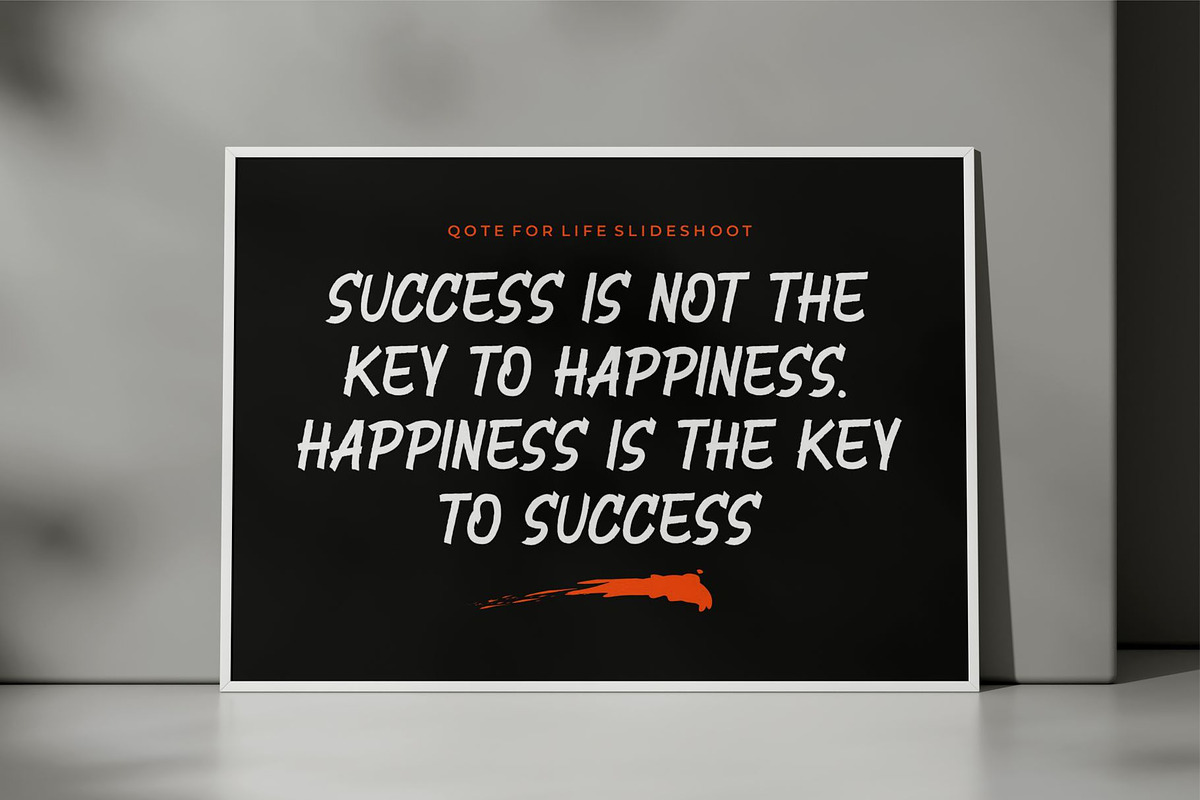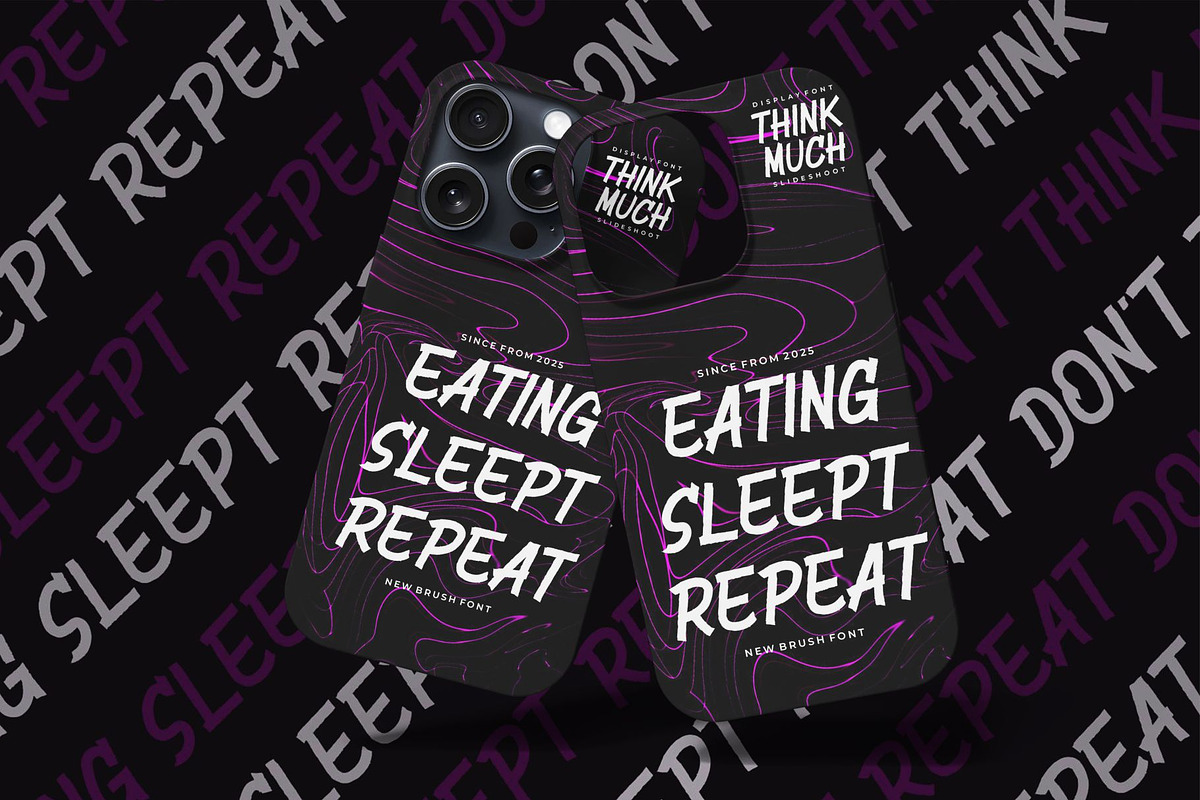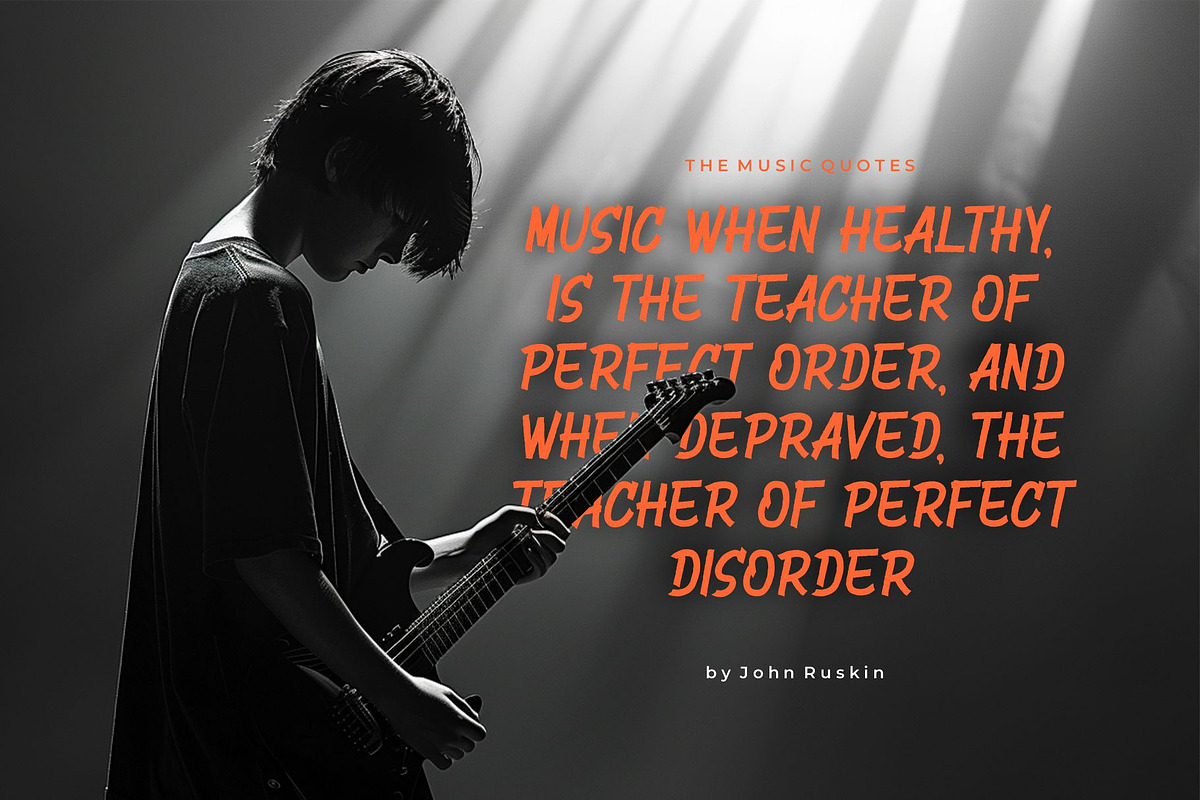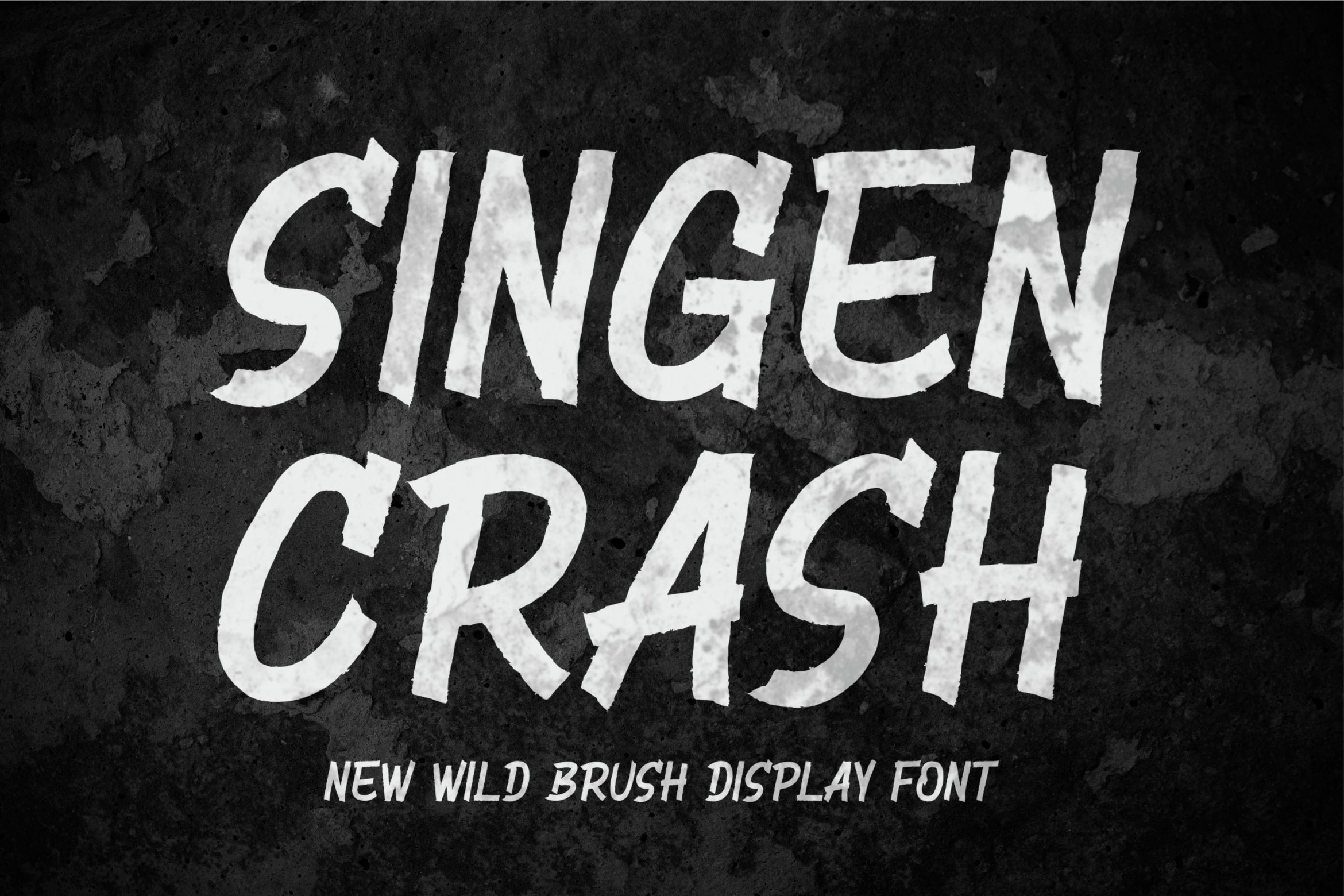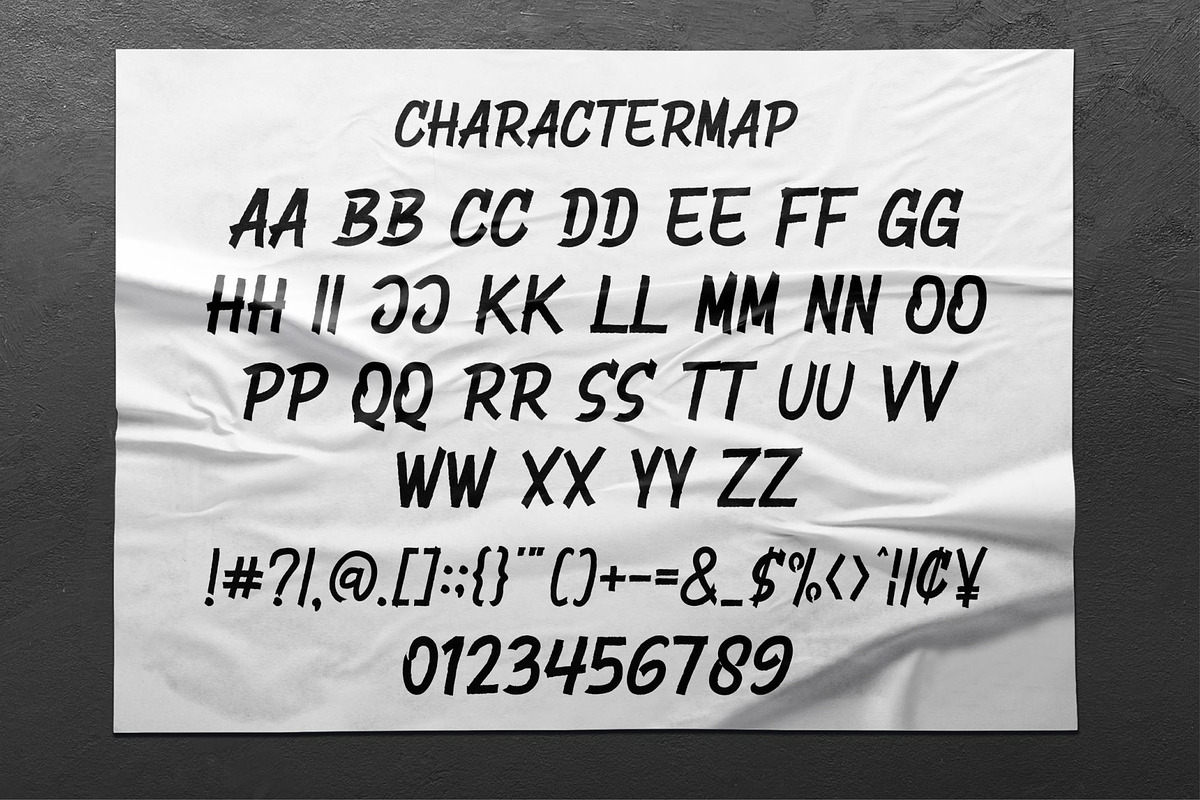
Singen Crash || Brush Display Font
Introducing Singen Crash is display brush Font is a modern, trendy, bouncy and cute display font. It has a unique character with wood theme. It is perfect to be combined with invitation card designs, company logos, movie titles, movie names, business cards, book titles, brand names and various other designs.